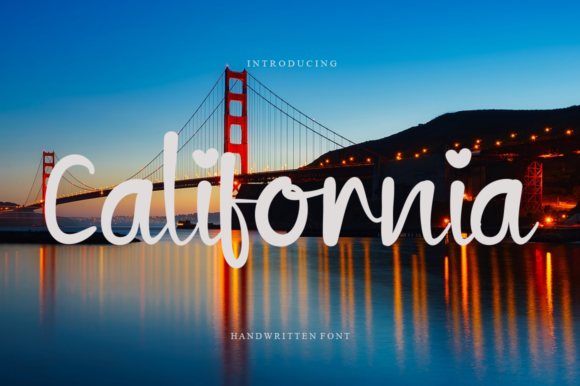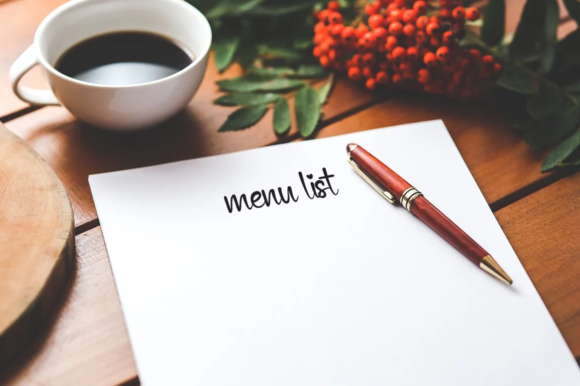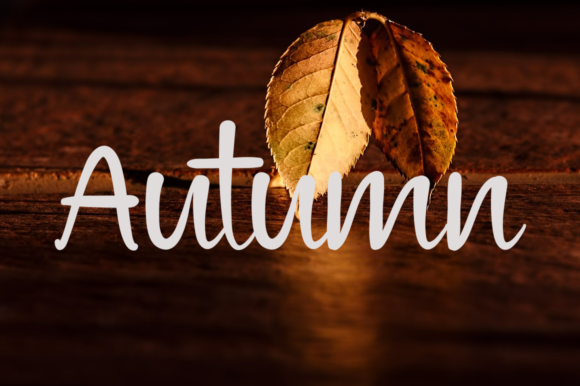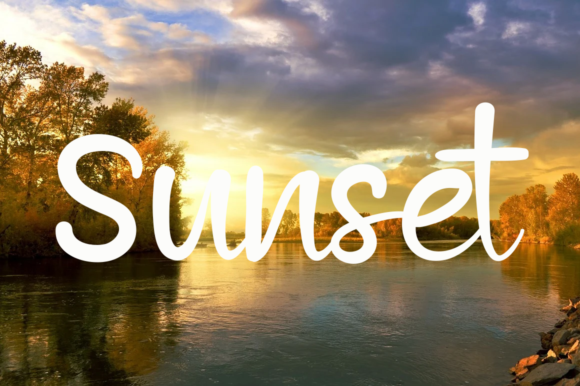
Experience the unique personality of California Font, a font designed for impact. California is a dainty, genuine and cursive handwritten font. This gentle font will look gorgeous on a variety of design ideas. It will add a joyful and romantic touch to each of your projects!
California’s delicate nature makes it ideal for projects requiring a touch of elegance and playfulness, such as wedding invitations, greeting cards, or branding for boutiques and artisanal products. Its cursive style works beautifully in short headlines, logos, and watermarks, adding a hand-crafted feel. However, its low x-height and ornate forms make it unsuitable for body text or UI elements where readability is paramount. Avoid using it in large blocks of text.
For optimal visual harmony, pair California with a clean sans-serif like Open Sans for body copy, or a more geometric sans-serif such as Futura for a modern contrast. A classic serif like Garamond can provide a sophisticated counterpoint, enhancing its romantic feel.
The overall personality of California is undeniably romantic and charming, conveying a sense of gentle sophistication and handcrafted quality. This makes it a perfect choice for brands wishing to project a feeling of warmth and personal connection with their audience.